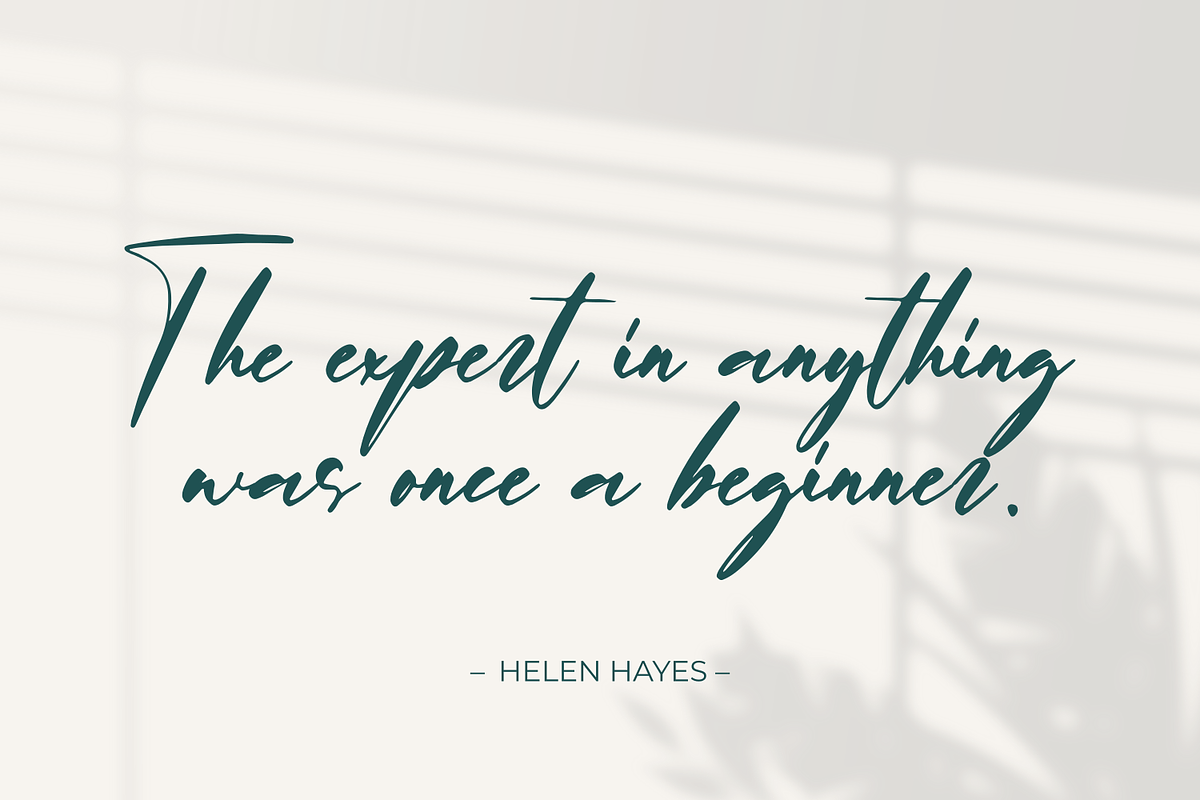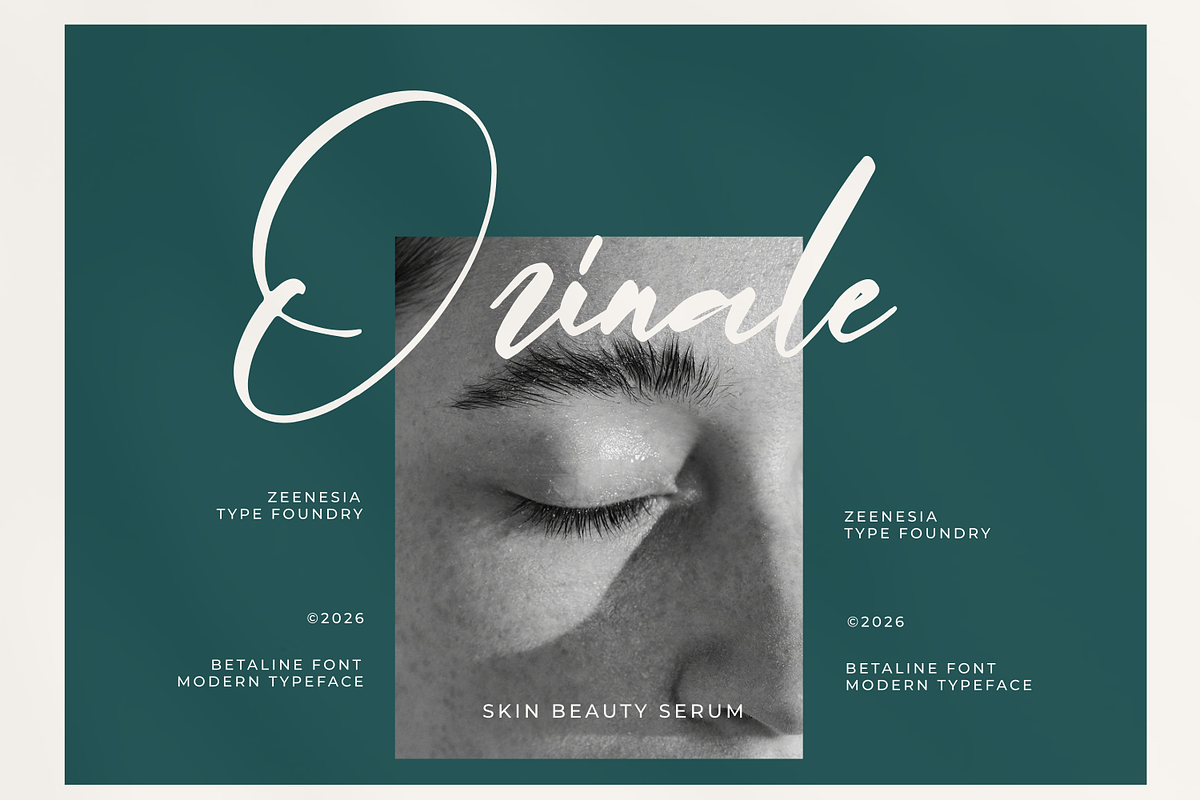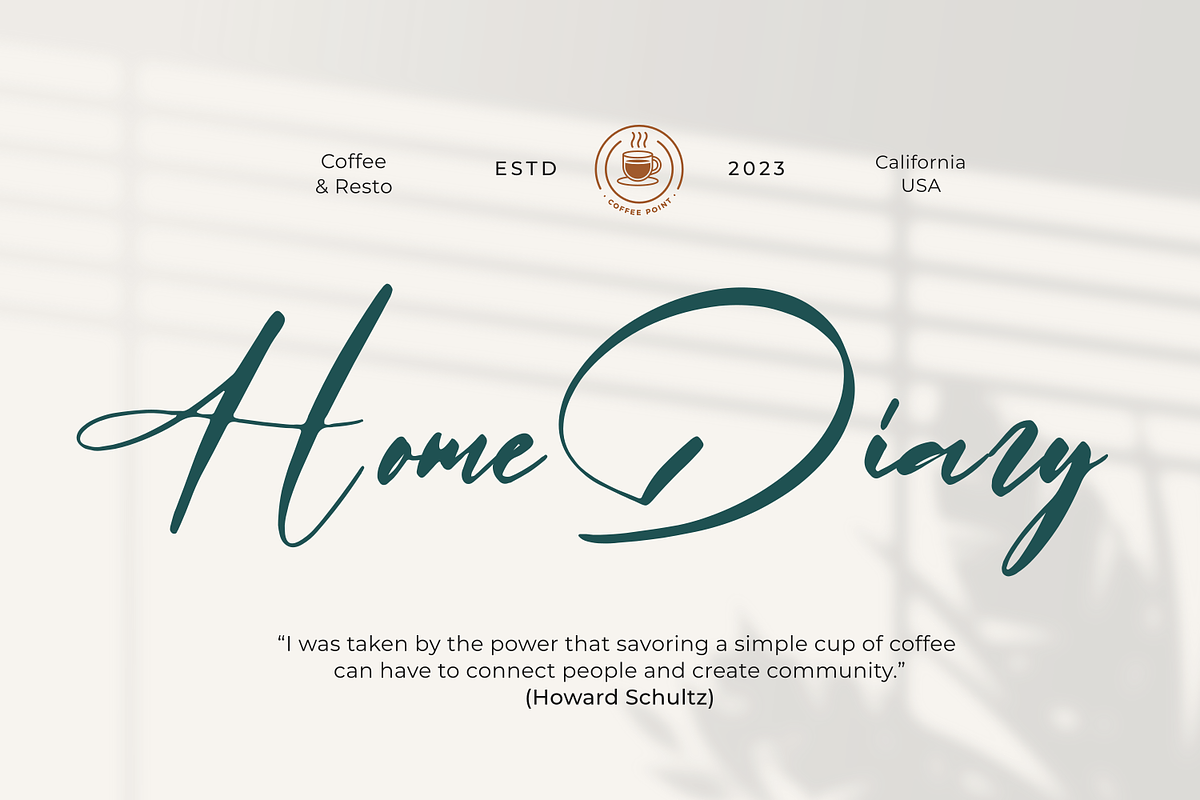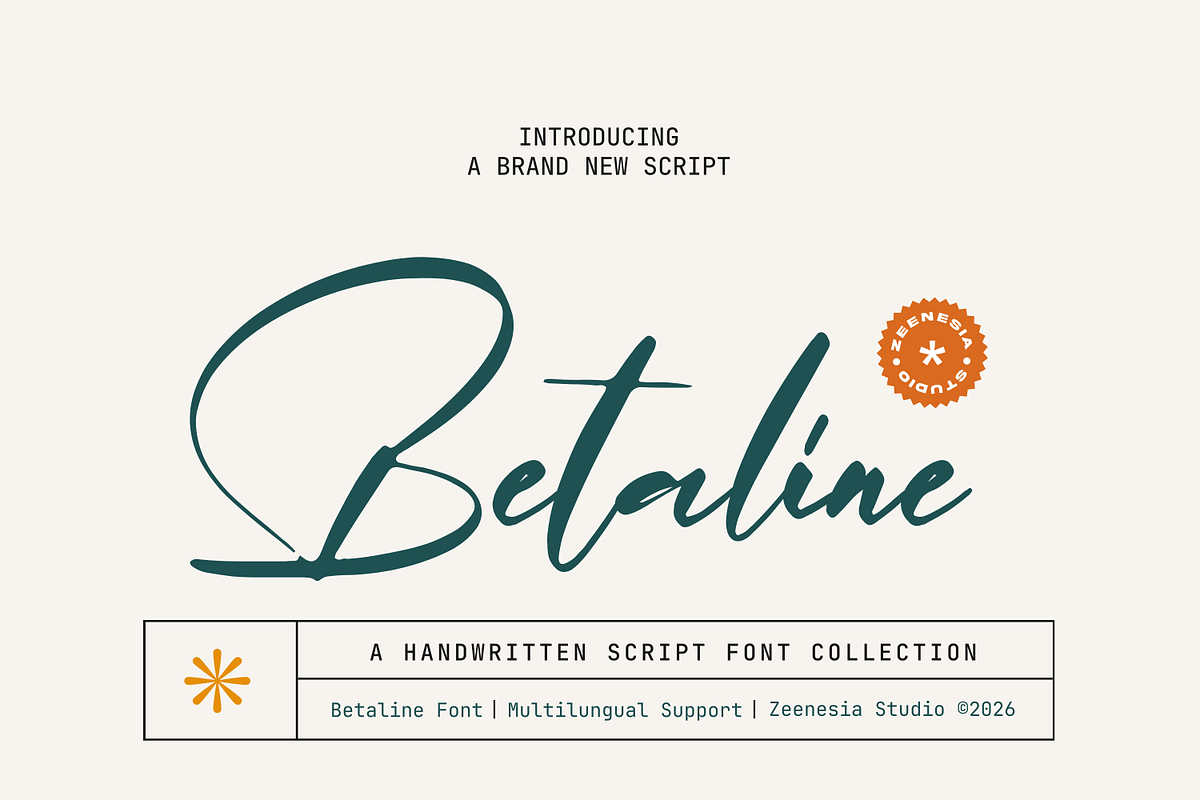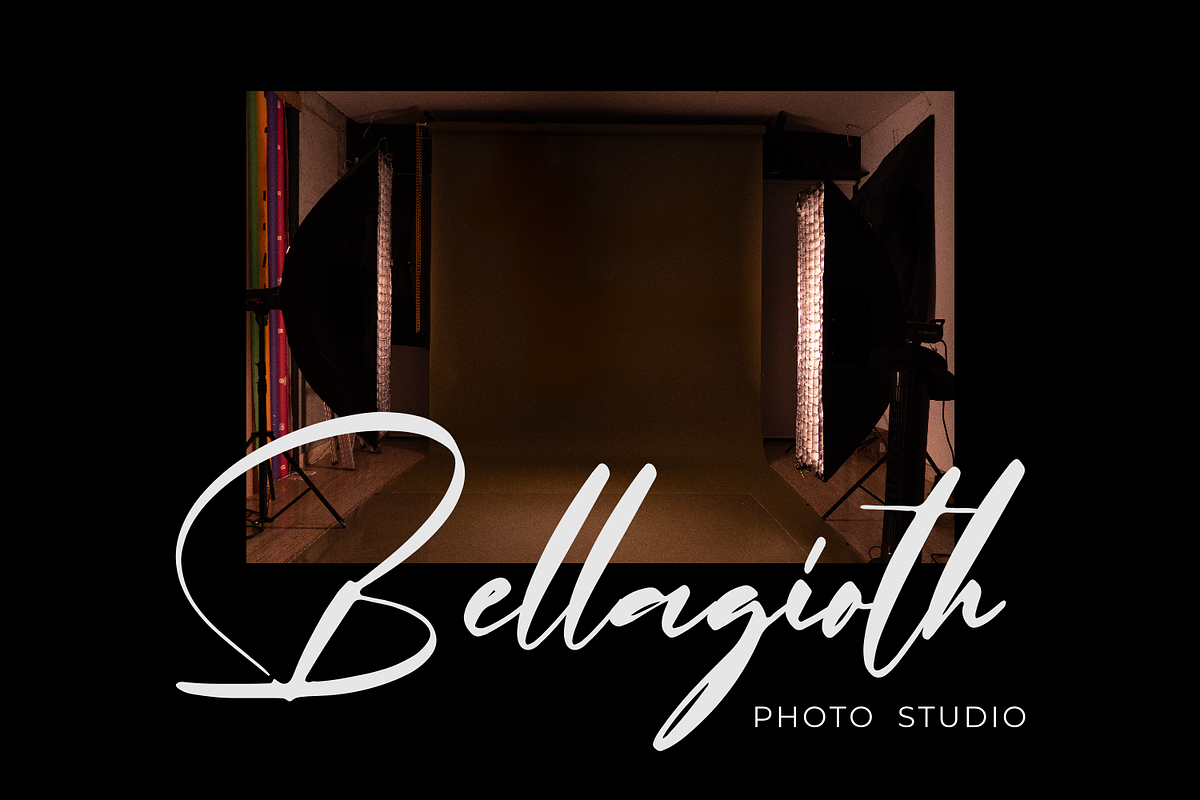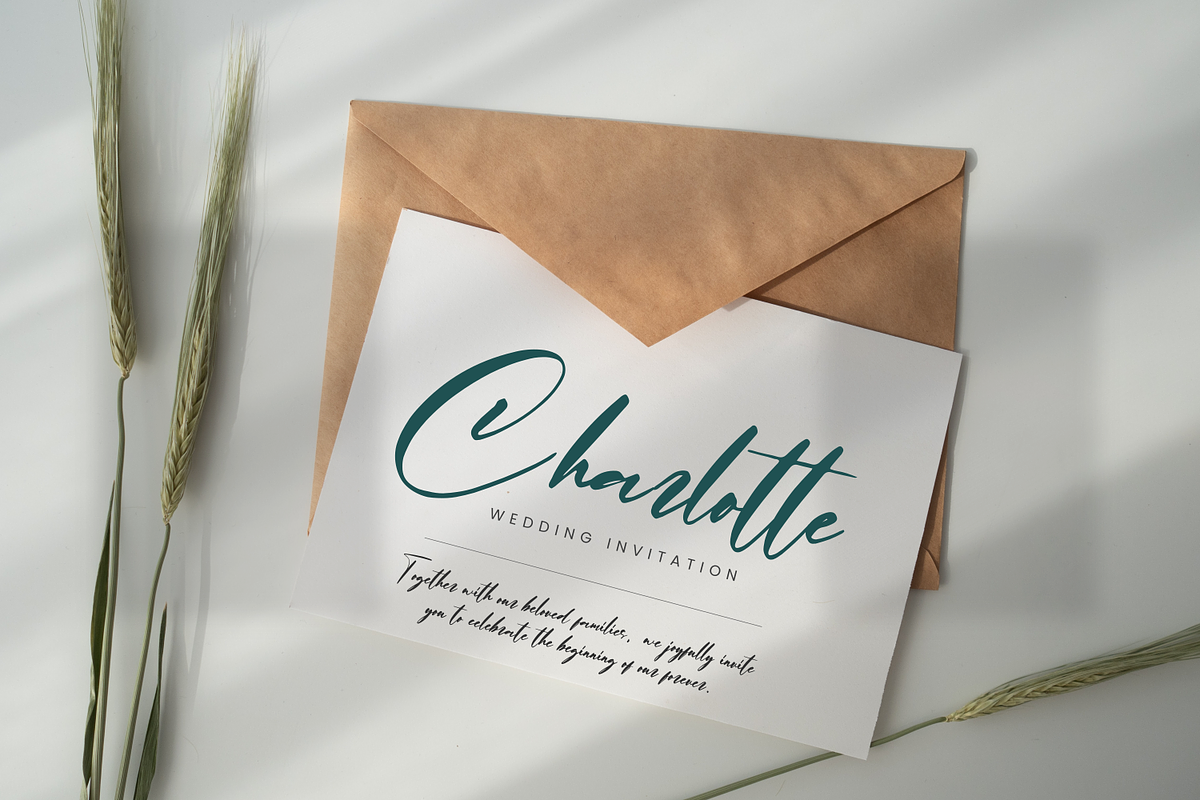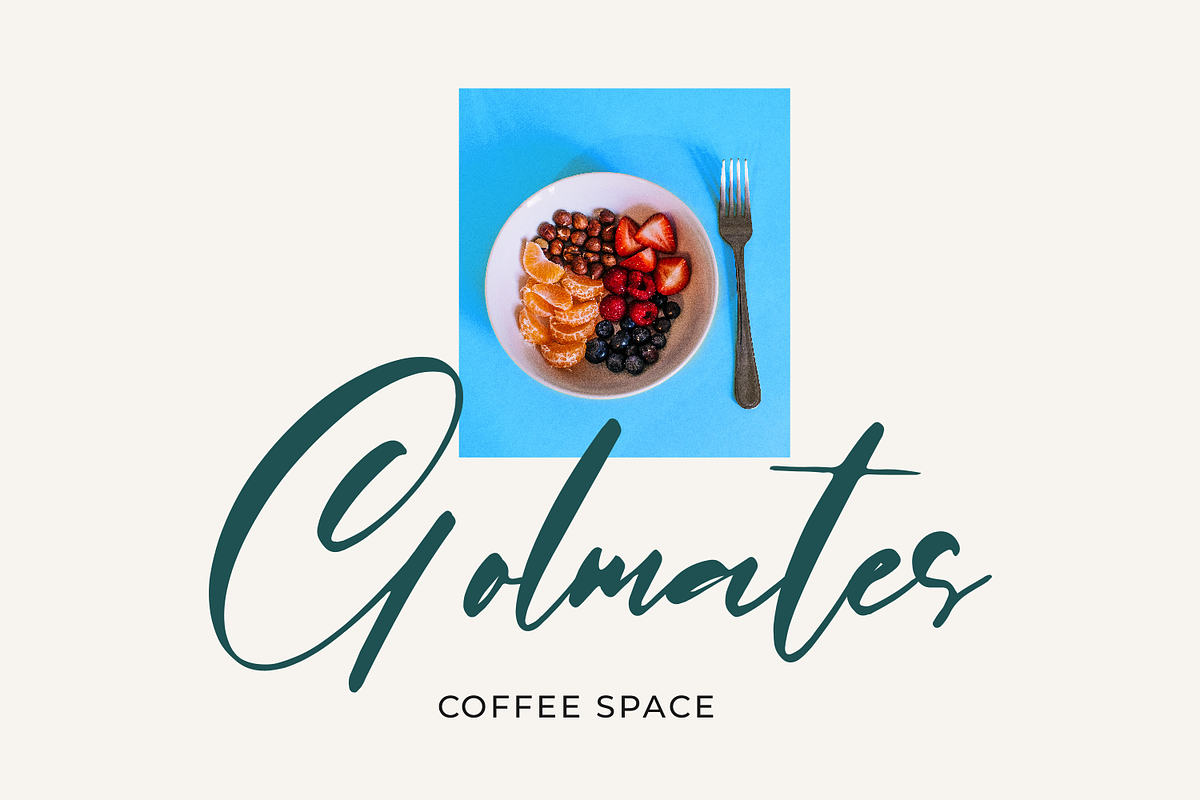
Betaline
Betaline Handwritten Font Betaline is a romantic handwritten script font that captures the beauty of natural pen strokes with an elegant and expressive personality. Designed to feel authentic, smooth, and graceful, Almena brings warmth and sophistication to every design, making it perfect for modern branding and timeless creative projects. Its flowing letterforms, balanced proportions, and handcrafted details create a luxurious handwritten appearance while maintaining excellent readability. Whether you're creating a feminine brand identity or an elegant editorial layout, Almena delivers a refined and personal touch.